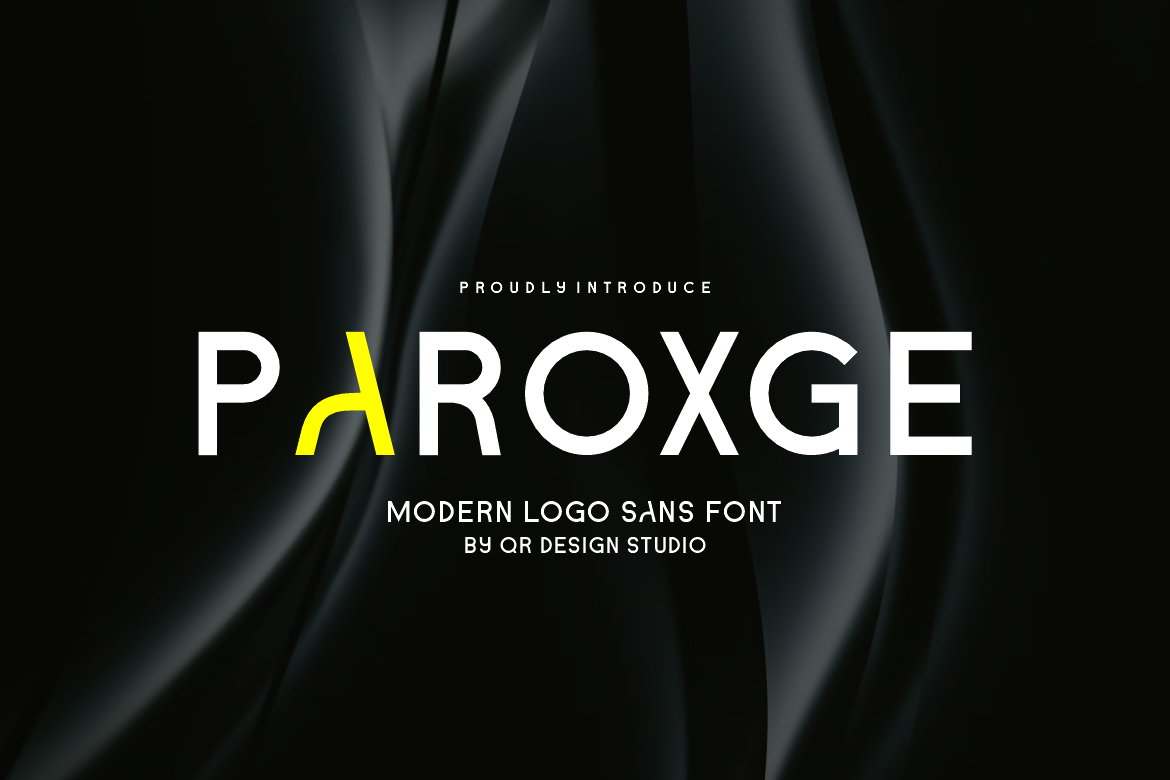
Paroxge - Modern Logo Sans Font
Paroxge Font is a sans serif and authentic display font. The font is suitable for any branding project like poster, logo, sport, and many more. Outstanding in a wide range of contexts.